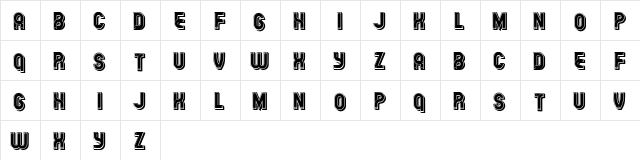
Fundament Regular Font Preview
Fundament Regular
Design Context for Fundament Typeface
Fundament trades formality for fun, with bouncy, characterful letterforms that bring warmth and energy to any project.
Font Pairing: Pairs well with a rounded or humanist sans for body copy, maintaining the friendly tone without relying on Fundament to carry extended reading.
Pro Tip: Avoid using Fundament for long passages of text — it works best for headlines, labels, and short calls to action.